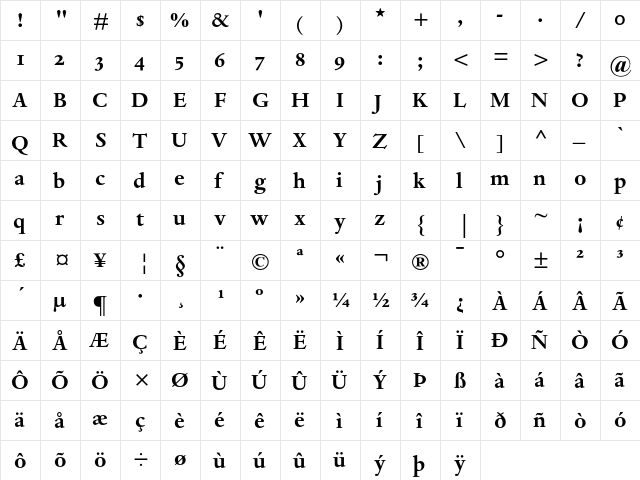
Dante MT Bold Oldstyle Figures
Design Context for Dante MT Typeface
Dante MT brings classic typographic sensibility to the table — its serifs and measured letterforms reflect centuries of print heritage. The heavy weight commands attention and anchors typographic hierarchies.
Pro Tip: Set Dante MT with slightly loose tracking in headlines to let each letterform's detail read clearly at display sizes.